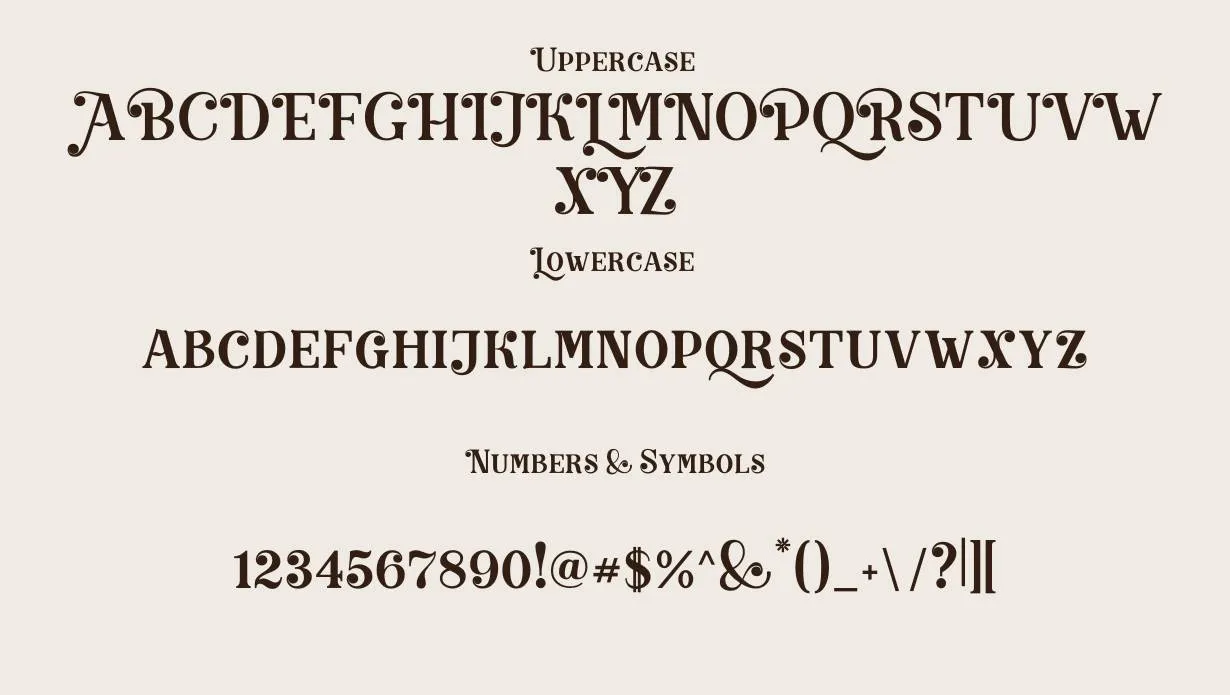
The Biago Font is like a breath of fresh air in the typography world, offering a modern and clean look.
| Name | Biago Font |
| Designer | Annas Alam Yahya |